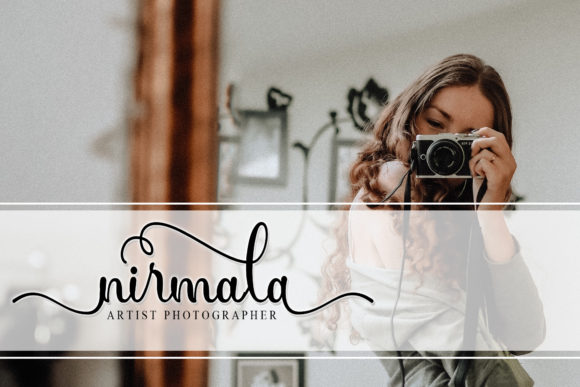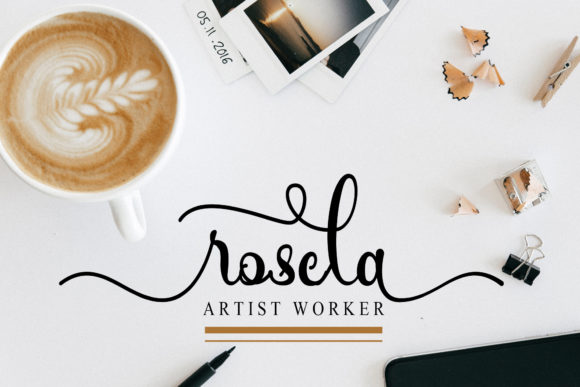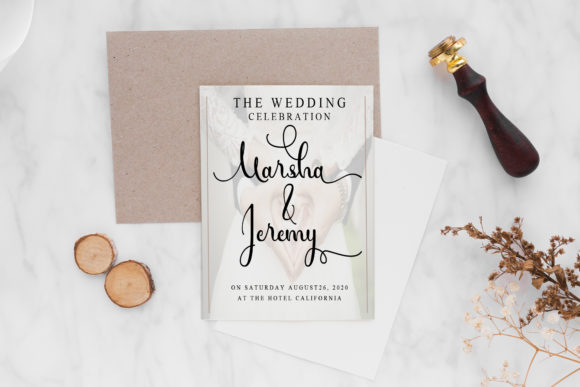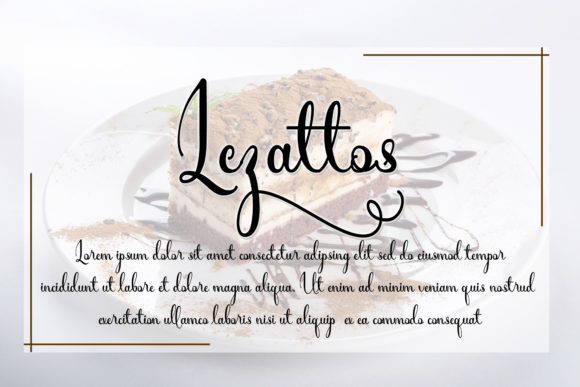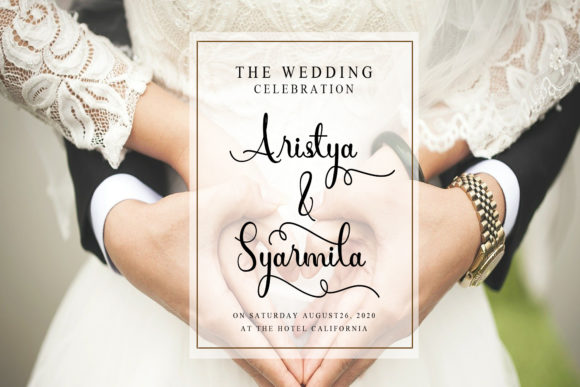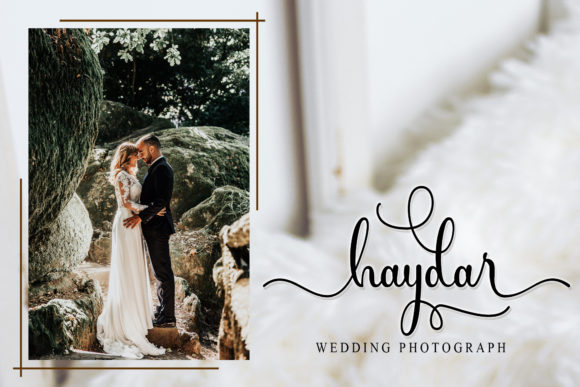
Introduction to Marsella Font
Marsella is a magical handwritten font carefully created with a touch of elegance.
It features gorgeous swashes and ligatures that make this script incredibly versatile Whether youโre looking for fonts for Instagram or calligraphy scripts for DIY projects, Marsella will turn any creative idea into a true piece of art.
Marsella Font offers exceptional quality and versatility, making it a valuable addition to your design toolkit. Whether you’re creating for personal projects or commercial use, Marsella Font delivers professional results.